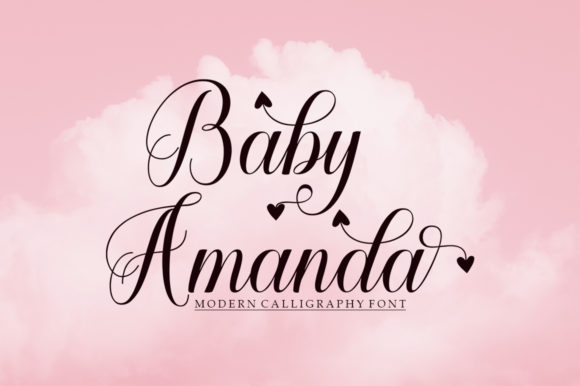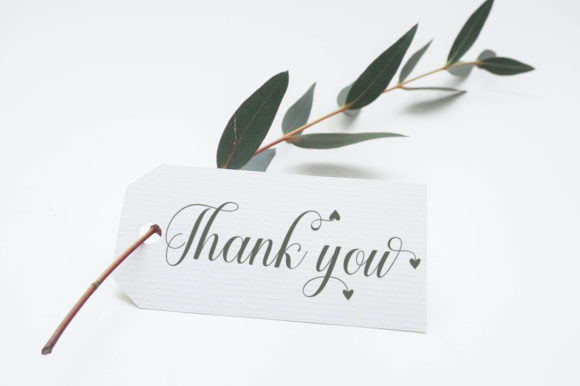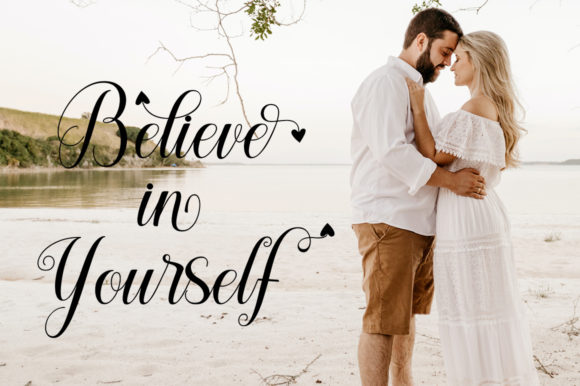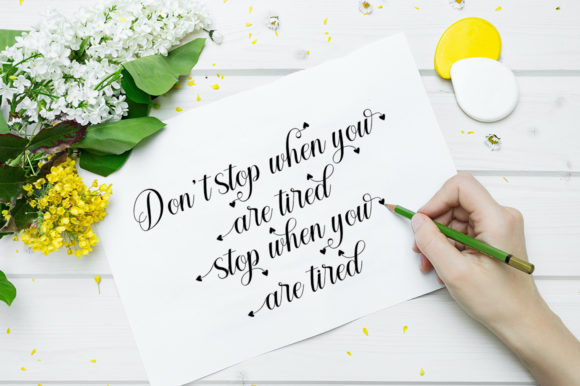
Baby Amanda Font
About Baby Amanda Font
Baby Amanda is a delicate, distinct and flowing handwritten font. Add it to your most creative ideas and notice how it makes them come alive!